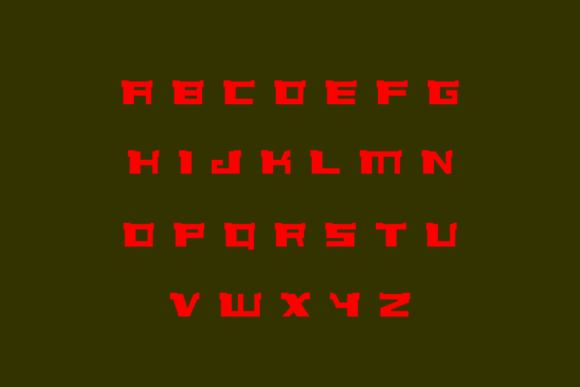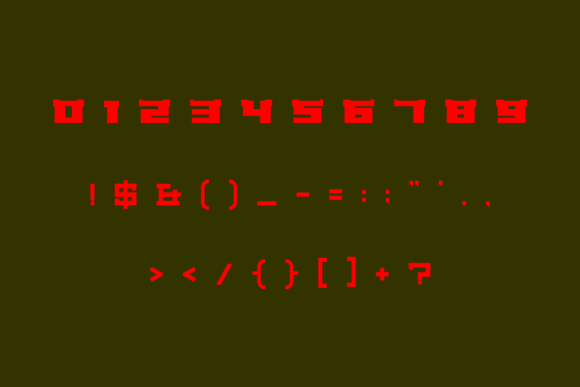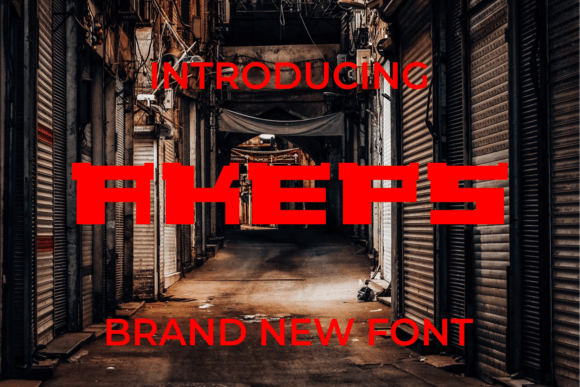
Akeps Font: The Ultimate Modern Display Font for Designers and Crafters
In the world of typography, fonts play a crucial role in conveying messages, expressing emotions, and creating visual identities. For designers and crafters, finding the perfect font can be a daunting task, especially when it comes to creating bold and eye-catching designs. This is where Akeps Font comes in – a cool and modern display font that has been making waves in the design community. In this article, we’ll dive into the features, benefits, and uses of Akeps Font, and explore why it’s a must-have for any designer or crafter looking to elevate their designs.
The Akeps Font Difference: Bold and Assertive Characters
Akeps Font is a display font that boasts bold and assertive characters, making it perfect for designs that require a strong visual impact. Its modern and sleek design ensures that it stands out from the crowd, while its versatility allows it to be used in a wide range of design projects. Whether you’re creating a logo, poster, or social media graphic, Akeps Font is sure to make a statement.
Matching a Wide Pool of Designs
One of the key benefits of Akeps Font is its ability to match a wide pool of designs. Its bold and assertive characters make it perfect for designs that require a strong and confident look, such as:
- Social media graphics and ads
- Web headers and titles
Whether you’re creating a design for a client or working on a personal project, Akeps Font is sure to complement your design style and help you achieve your desired outcome.
Key Features of Akeps Font
Akeps Font comes with a range of key features that make it a must-have for designers and crafters. Some of its notable features include:
- Bold and assertive characters: Akeps Font features bold and assertive characters that make it perfect for designs that require a strong visual impact.
- Modern and sleek design: Its modern and sleek design ensures that it stands out from the crowd and adds a touch of sophistication to any design.
- Versatility: Akeps Font is versatile and can be used in a wide range of design projects, from logos and posters to social media graphics and web headers.
- Easy to read: Despite its bold and assertive characters, Akeps Font is easy to read, making it perfect for designs that require a clear and concise message.
Why Designers and Crafters Love Akeps Font
Akeps Font has quickly become a favorite among designers and crafters, and for good reason. Here are some reasons why:
- Unique and creative: Akeps Font offers a unique and creative way to express yourself and add a touch of personality to your designs.
- Time-saving: With Akeps Font, you can create professional-looking designs in no time, saving you time and effort.
- Customizable: Akeps Font is highly customizable, allowing you to adjust its size, color, and style to fit your design needs.
- High-quality: Akeps Font is a high-quality font that is designed to deliver exceptional results, whether you’re working on a print or digital project.
How to Use Akeps Font in Your Designs
Using Akeps Font in your designs is easy and straightforward. Here are some tips to get you started:
- Pair it with other fonts: Akeps Font pairs well with other fonts, so feel free to experiment with different font combinations to create a unique look.
- Adjust its size and color: Adjust the size and color of Akeps Font to fit your design needs and create a visually appealing design.
- Use it for headlines and titles: Akeps Font is perfect for headlines and titles, so use it to add a touch of sophistication and elegance to your designs.
In conclusion, Akeps Font is a cool and modern display font that is perfect for designers and crafters looking to elevate their designs. Its bold and assertive characters, modern and sleek design, and versatility make it a must-have for any design project. Whether you’re creating a logo, poster, or social media graphic, Akeps Font is sure to make a statement and help you achieve your desired outcome.